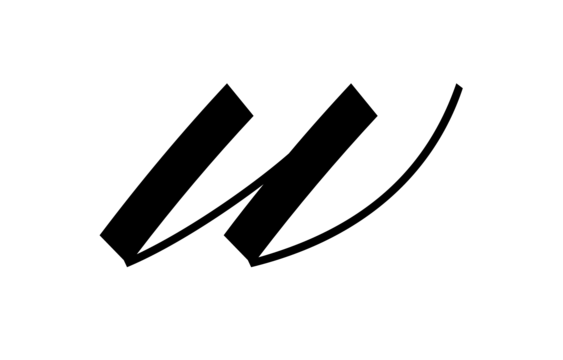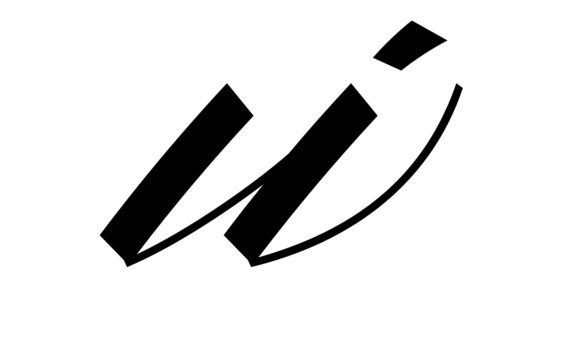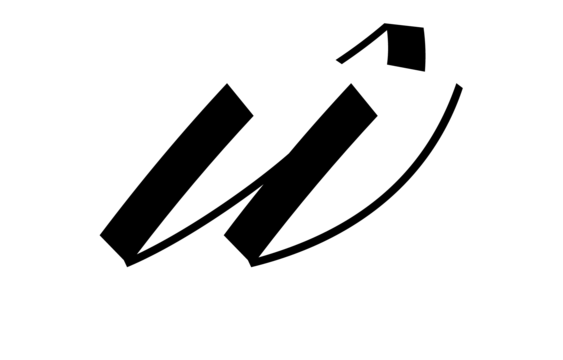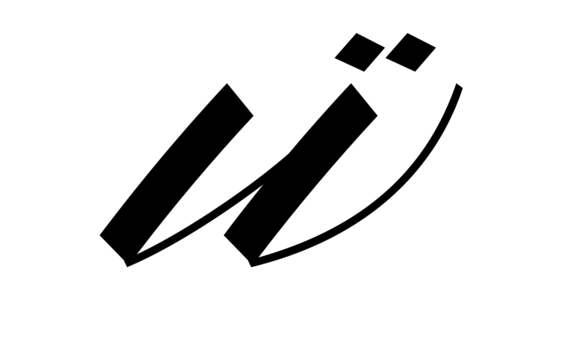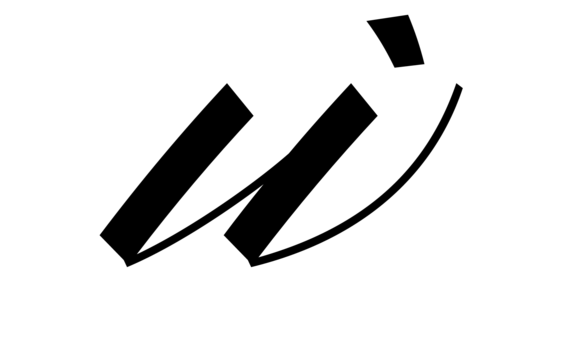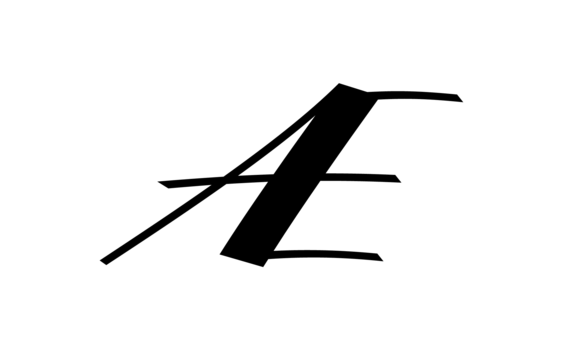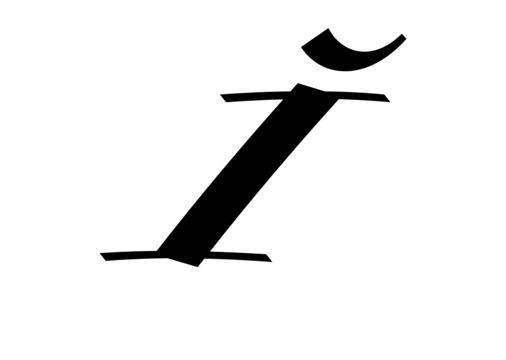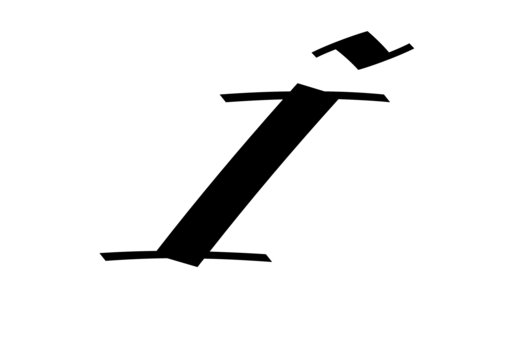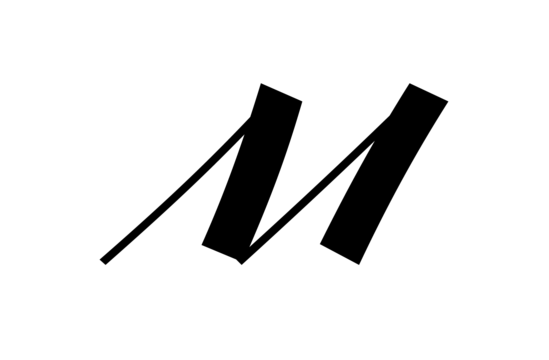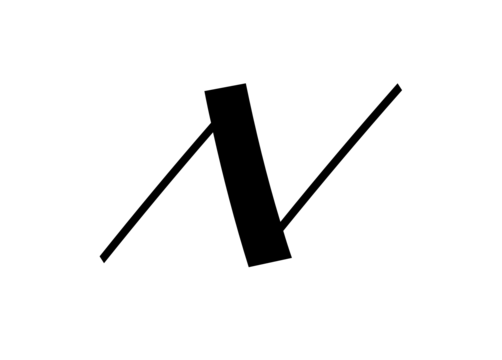
Katana is 21st-century script typeface that thrives with energy. Its stylised letterforms feature a strong slant: about 40°, or more than twice the amount of slant found in a typical italic font. Katana’s angularity expresses an aura that combines the small refined details of calligraphy with the vibrancy of large-format graffiti lettering. Unusual for a script typeface, Katana has multiple weights available; there are five in the family, and they range from Light through Bold. As one shuffles from each weight to the next, the level of stroke contrast increases. While Katana’s Light weight is monolinear, the Bold weight has extremely hight contrast between its thick and thin strokes, which dials up the font’s dynamic-feeling even more. The heavier weights clearly look like their letterforms have been written with broad pens or brushes, and the heaviest font looks like a techno-style design crossed with the work of a traditional sign-painter. Each member of the Katana family has lining figures as its font’s default numeral style, but there are also oldstyle figures available through an OpenType feature. Plus, each font includes about 26 alternate glyphs, substituted into the text whenever the ‘contextual alternates’ feature is active. Katana is a great addition to an editorial designer’s toolkit. It comes from Parimal Parmar, a designer in Ahmedabad/India.
| Family Name | Katana |
|---|---|
| Designer(s) | Parimal Parmar |
| Release Date | August 19, 2018 |
| Available Style | Light, Regular, Medium, Semibold, Bold |
| Classification | Script |